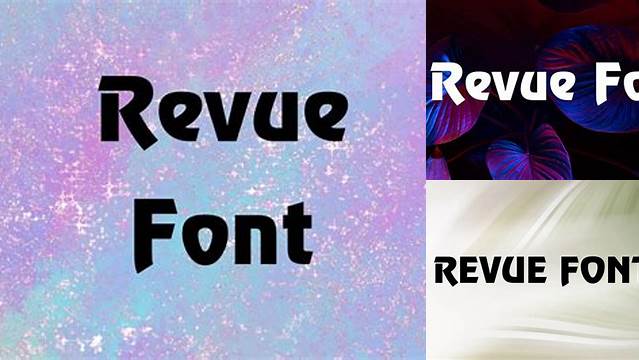
Revue Medium Font: Free Download & Usage Guide
Introduction: Delving into the World of Revue Medium Font
Hey guys! Let's talk about fonts, specifically the Revue Medium font. This font is a real gem for designers and anyone who loves typography. In this comprehensive guide, we'll dive deep into what makes Revue Medium so special, where you can snag it for free, and how to use it to make your projects pop. Whether you're working on a website, a presentation, or even just a cool poster, understanding the nuances of fonts like Revue Medium can seriously level up your design game. So, buckle up, and let's get font-astic!
The Revue Medium font has carved a niche for itself in the design world, thanks to its unique blend of readability and aesthetic appeal. It's a sans-serif typeface, meaning it lacks the small decorative strokes (serifs) that you often see in fonts like Times New Roman. This gives it a clean, modern look that works well in a variety of contexts. What sets Revue Medium apart is its distinct character – it’s not just another generic sans-serif. The letterforms have a certain warmth and personality, making it a versatile choice for both body text and headlines. Think of it as the Goldilocks of fonts: not too formal, not too casual, just right for a wide range of projects.
When we talk about the versatility of Revue Medium, we're really talking about its ability to adapt to different design needs. Need a font that looks professional for a business report? Revue Medium has you covered. Want something that feels approachable and friendly for a blog post? It can do that too. This adaptability stems from its balanced design. The letters are well-proportioned, with a comfortable weight and spacing that makes it easy on the eyes. This is crucial for readability, especially in longer texts. Imagine trying to read a lengthy article in a font that’s cramped or overly stylized – your eyes would start to protest pretty quickly! Revue Medium, on the other hand, is designed to keep your readers engaged and comfortable.
Beyond its technical merits, Revue Medium also has a certain aesthetic charm that makes it a favorite among designers. It has a contemporary feel without being trendy, which means it won't look dated anytime soon. This timeless quality is a huge asset, as it allows you to use the font in projects that need to stand the test of time. Think about a logo, for example. You want a font that will still look good in 5, 10, or even 20 years. Revue Medium fits the bill perfectly. Its clean lines and subtle character make it a reliable choice for branding, editorial design, and web design. In the following sections, we'll explore how you can get your hands on this fantastic font for free and start incorporating it into your own projects. Get ready to unleash the power of Revue Medium!